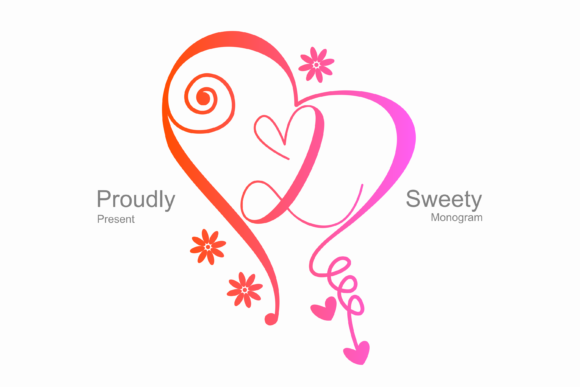
Introducing Sweety Monogram Font, an exquisite script font that exudes an air of elegance and charm. Its delicate handwritten style dances across the page, bringing a touch of playfulness and personality to your creative endeavors.
Crafted by the talented Rusd Studio, Sweety Monogram is more than just a font; it's an expression of creativity and individuality. Its beautiful swashes add a touch of whimsical flair, making it the perfect choice for those seeking a font that stands out from the crowd.
As the name suggests, Sweety Monogram is ideal for creating personalized monograms, adding a unique touch to stationery, wedding invitations, and other special occasion projects. Its versatility, however, shines through in its suitability for a wide range of projects, from letterheads and logos to social media posts and digital designs.
Whether you're a seasoned designer or just starting, Sweety Monogram is the perfect font to elevate your creative projects. Its user-friendly nature makes it accessible to all skill levels, while its exceptional quality ensures professional-looking results every time.
**Sweeten Your Designs with Sweety Monogram Font**
*Add a Touch of Elegance:*
Sweety Monogram's graceful curves and delicate swashes bring an air of sophistication and refinement to any design. Its presence commands attention, making it ideal for projects where you want to leave a lasting impression.
*Express Your Unique Style:*
With its charming handwritten style, Sweety Monogram allows you to infuse your designs with your own unique personality. It's a font that reflects your creativity and sets you apart from the crowd.
*Versatility at Your Fingertips:*
Sweety Monogram is a versatile font that transcends the boundaries of genre and style. It seamlessly complements a wide range of projects, from classic wedding invitations to modern social media posts. Its adaptability makes it a must-have tool for any creative individual.
*Effortless Beauty:*
Sweety Monogram's user-friendly nature makes it accessible to designers of all skill levels. Its intuitive design ensures a smooth and enjoyable experience, allowing you to focus on creating beautiful designs without the hassle of technical complexities.
*Exceptional Quality, Guaranteed:*
Sweety Monogram is a high-quality font that delivers crisp, clean results every time. Its attention to detail and meticulous craftsmanship ensure that your designs look their absolute best.